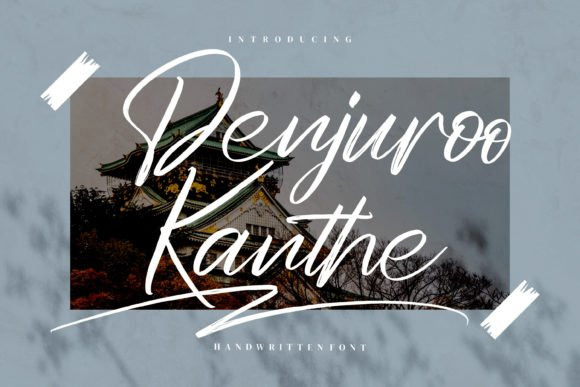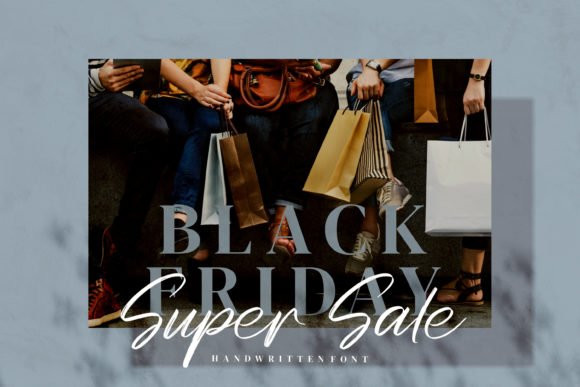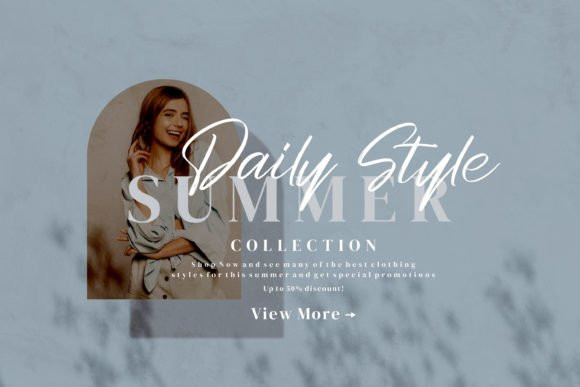
Denjuroo Kanthe Font
Denjuroo Kanthe is a flowing and flexible handwritten font. Warm and romantic, this font will turn each of your project ideas into real works of art. Have fun with this beautiful font and explore its endless variations.